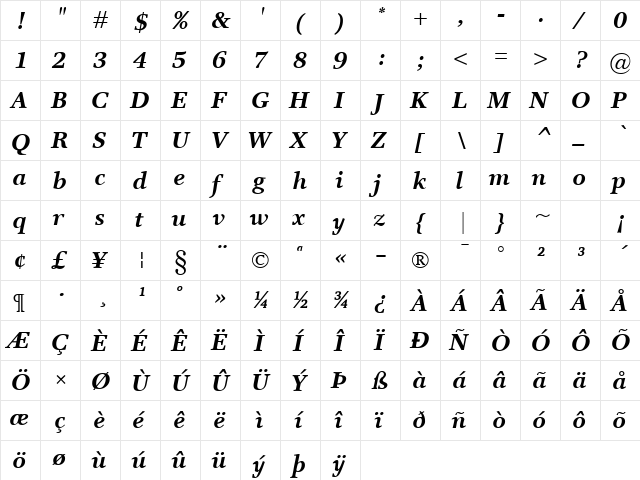
Res Publica BoldItalic
Design Context for Res Publica Typeface
Res Publica is a composed and adaptable typeface that performs quietly and consistently across a wide range of design contexts. Its italic angle brings a sense of urgency and motion to the letterforms. Its bold stroke weight gives it real presence on the page.
Pro Tip: Try Res Publica for annotation and caption copy alongside an upright companion — the contrast in angle creates a dynamic but ordered typographic system.